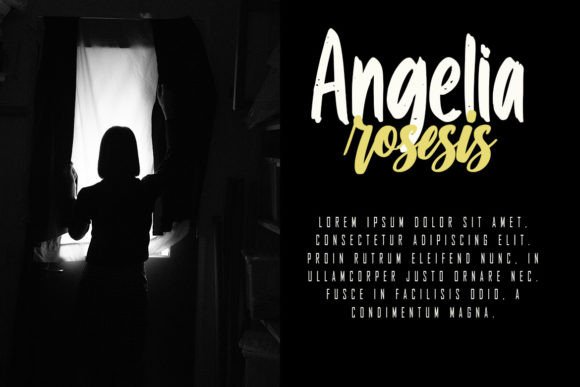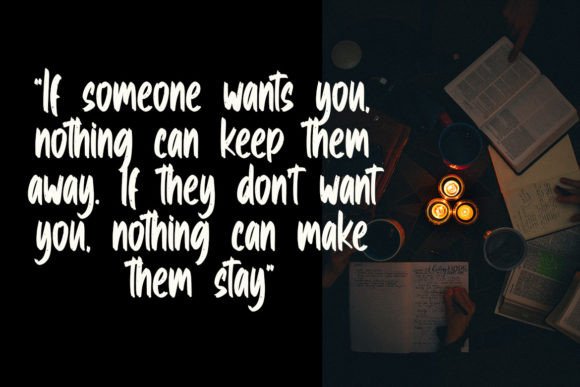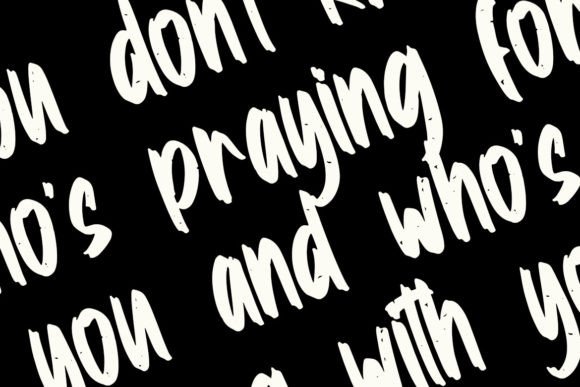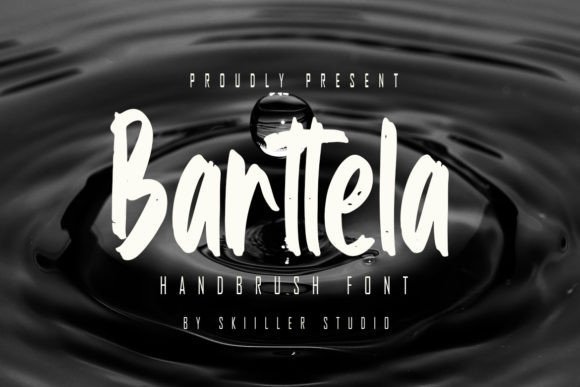
Introduction to Barttela Font
Barttela is a modern brush display font, crafted to give your headlines and logotype projects a stylish touch.
👤 Author Skiiller Studio
This font reads as strong, confident, and dynamic and can add tons of urban character to your designs .
Why Choose Barttela Font?